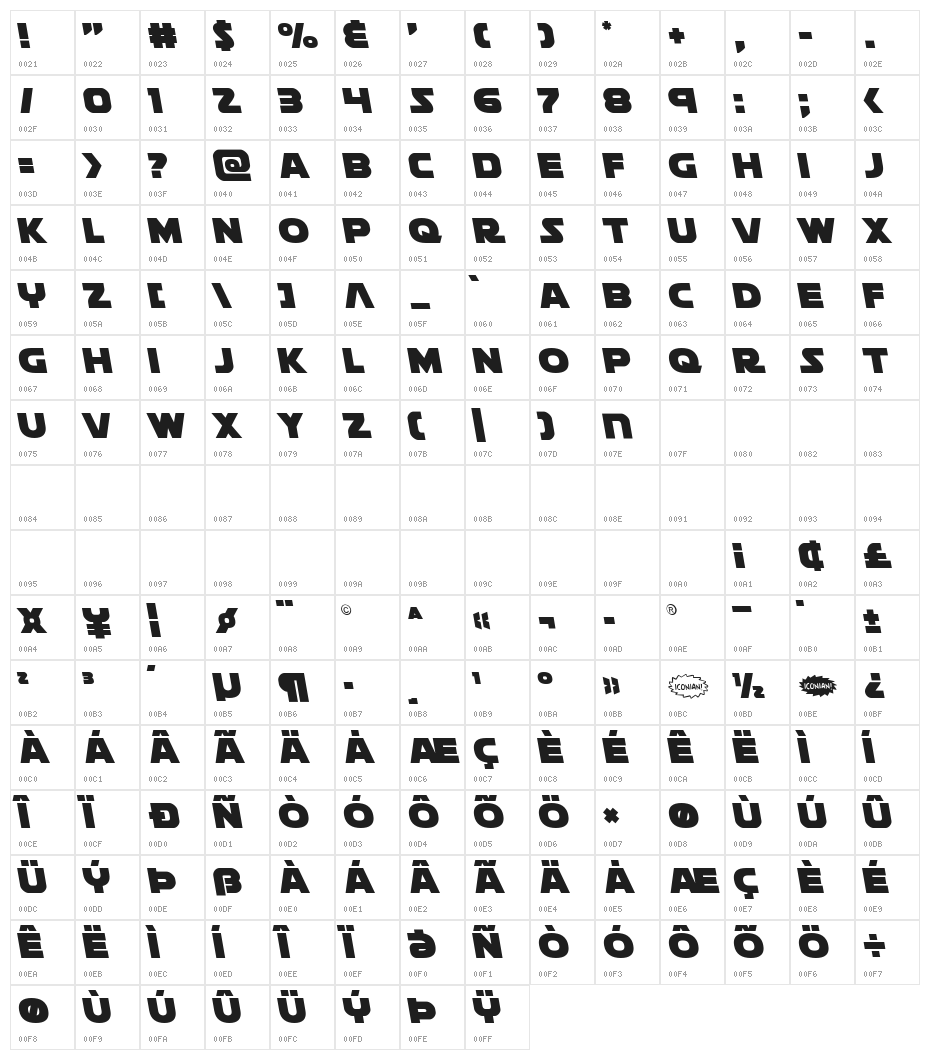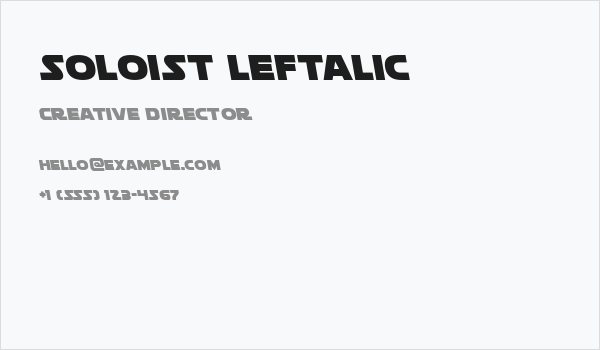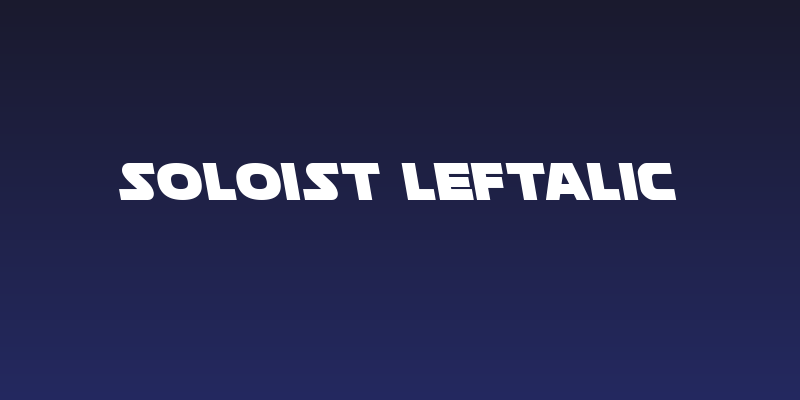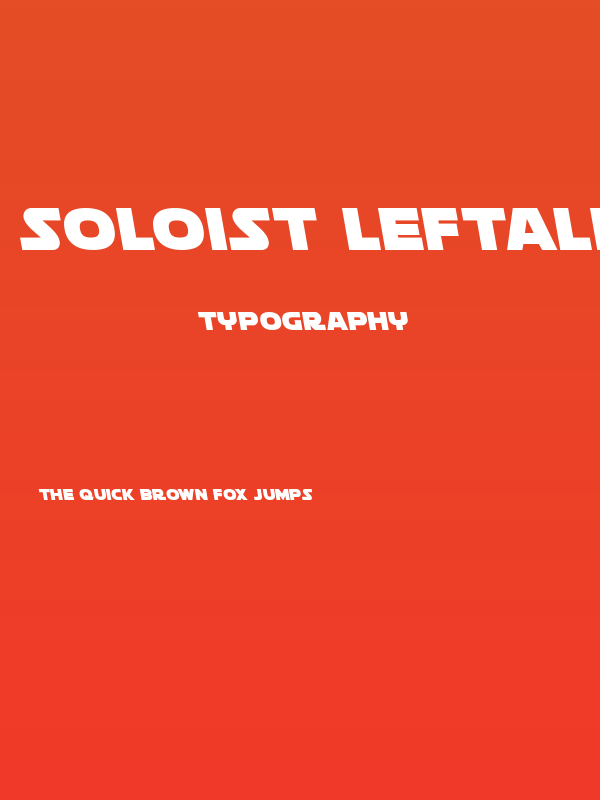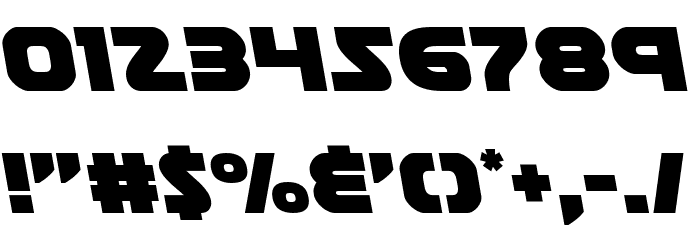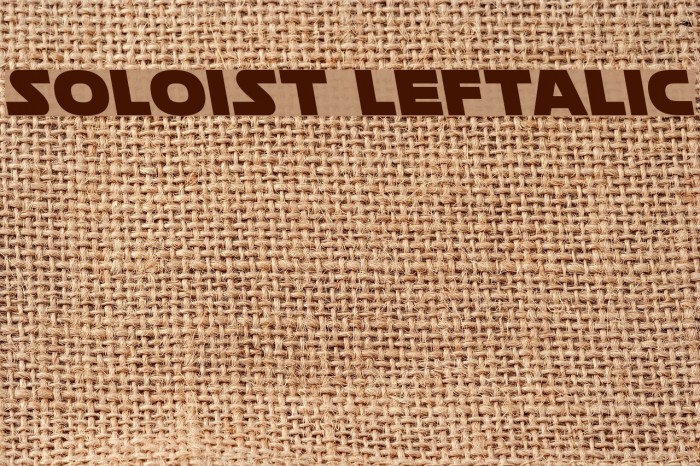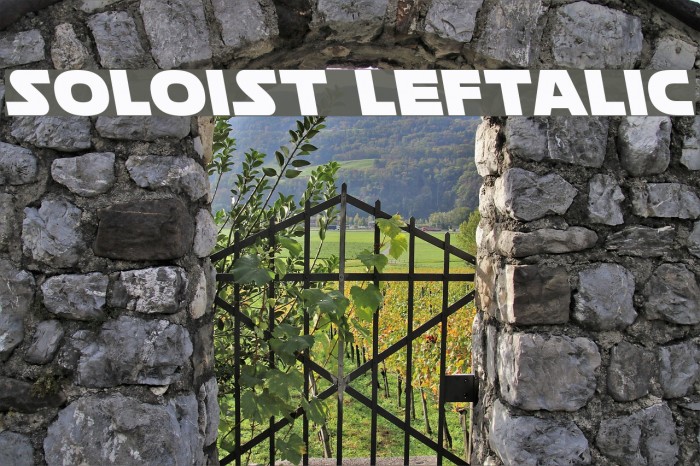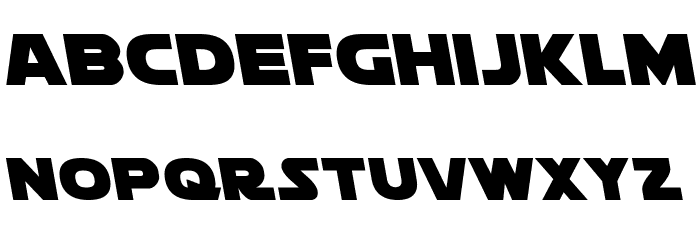
Soloist Leftalic Font
Soloist Leftalic Description
This font features a bold and dynamic style with a distinctive slant to the left, giving it a sense of movement and energy. The characters are thick and robust, with a modern, geometric design that emphasizes strong lines and angles. The uppercase and lowercase letters maintain a consistent width, creating a uniform appearance across the text. Numbers and special characters are designed to match the boldness and style of the alphabet, ensuring a cohesive look. The font's unique slant and bold weight make it stand out, perfect for attention-grabbing headlines or impactful logos.